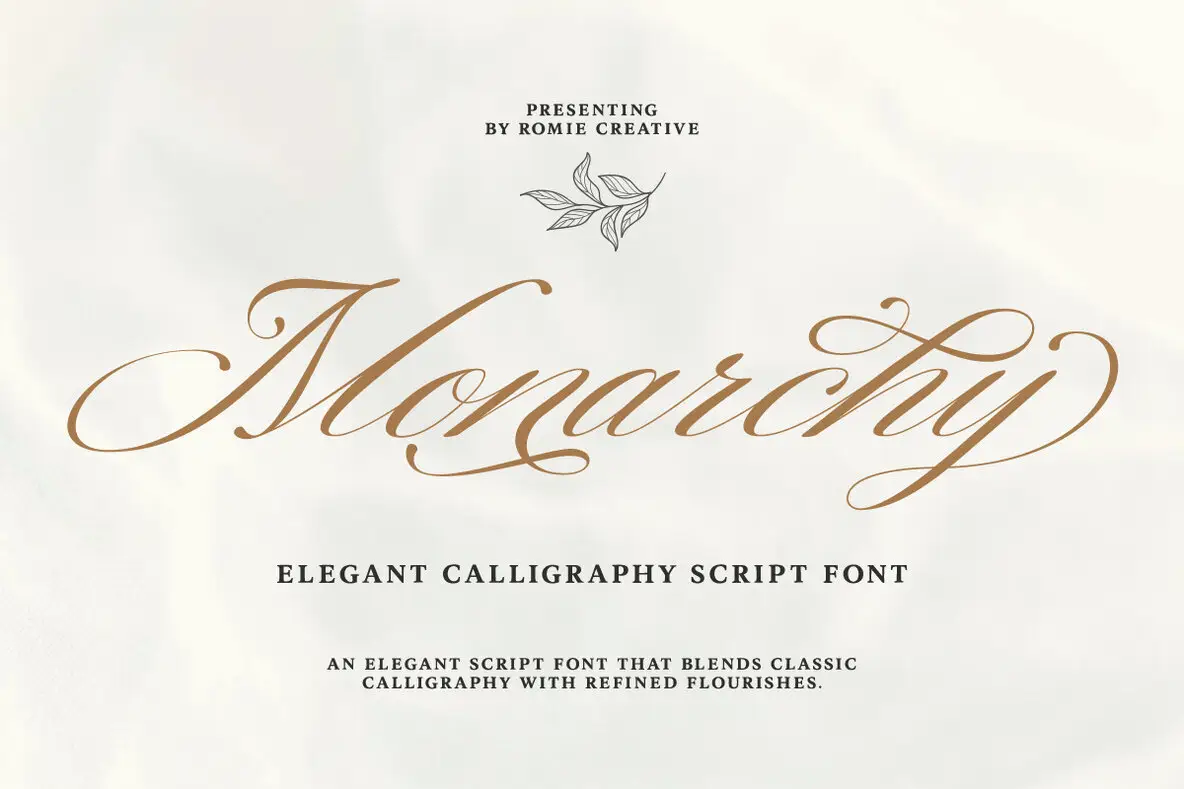
Monarchy Font
Monarchy Script Regular
Monarchy Script is an elegant choice for elevating your creative projects, be it brand identities, invitations, product labels, or apparel designs. Its sophisticated touches and classic appeal make it a versatile option for those aiming to add a dash of elegance. The font's OpenType features include stylistic alternates and unique ligatures, granting designers remarkable adaptability and creativity in their work. This flexibility allows for seamless integration into diverse visual narratives. Features: To fully utilize the font's capabilities, it's recommended to use design software like Adobe Illustrator or Photoshop. Customize your typography to reflect your project's distinctive needs and vision.Monarchy Script: A Blend of Sophistication and Timelessness